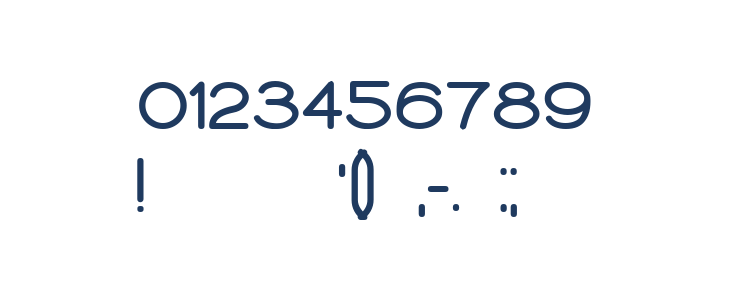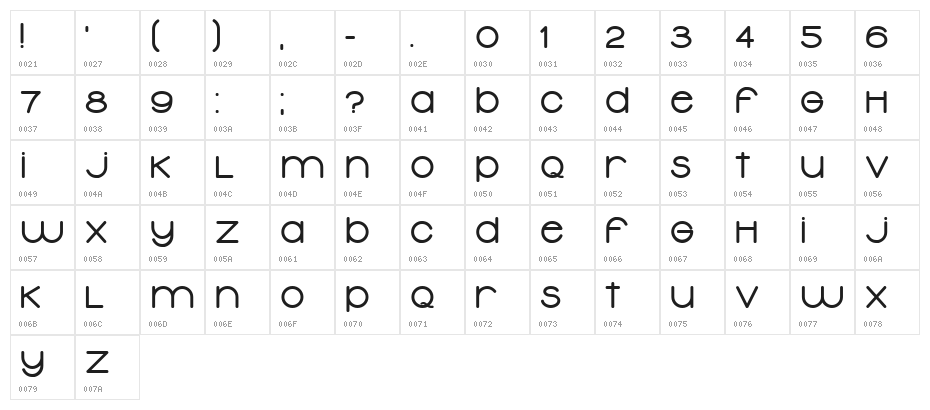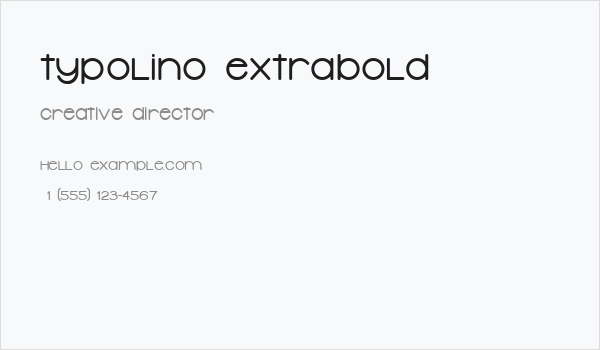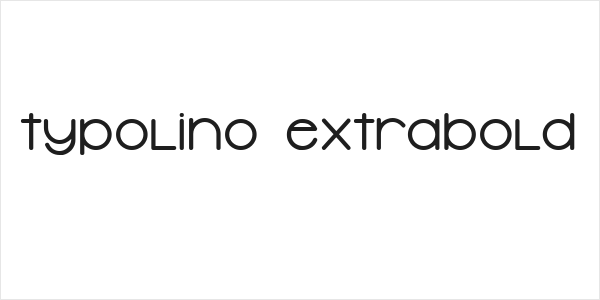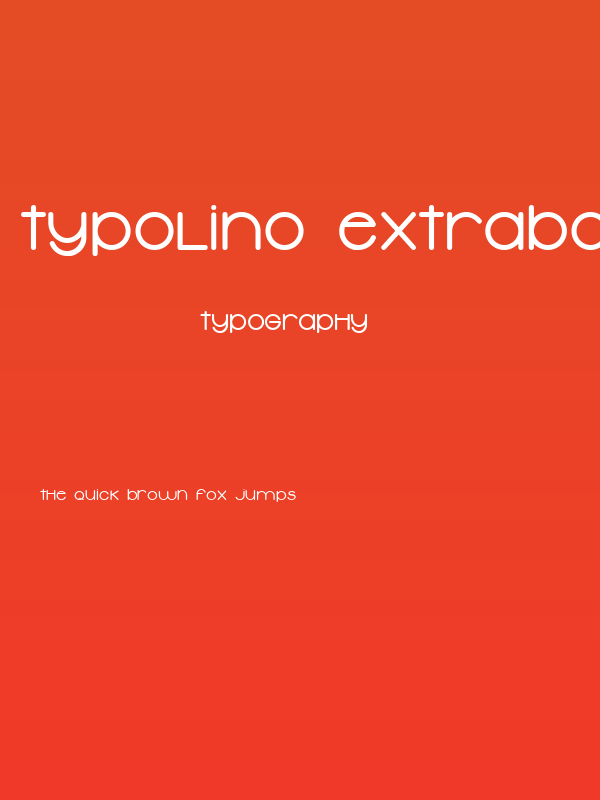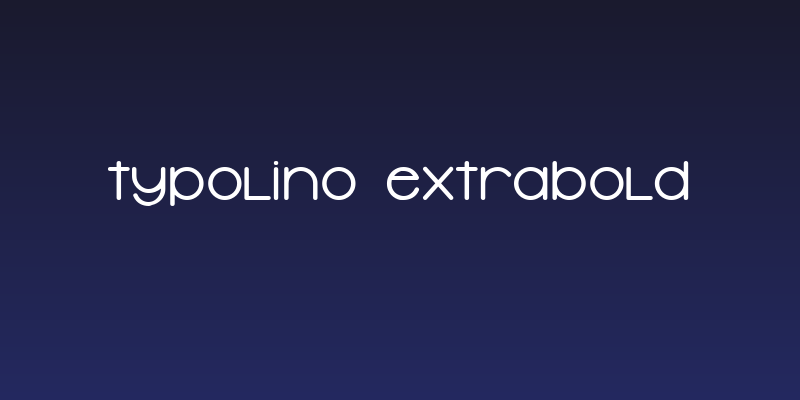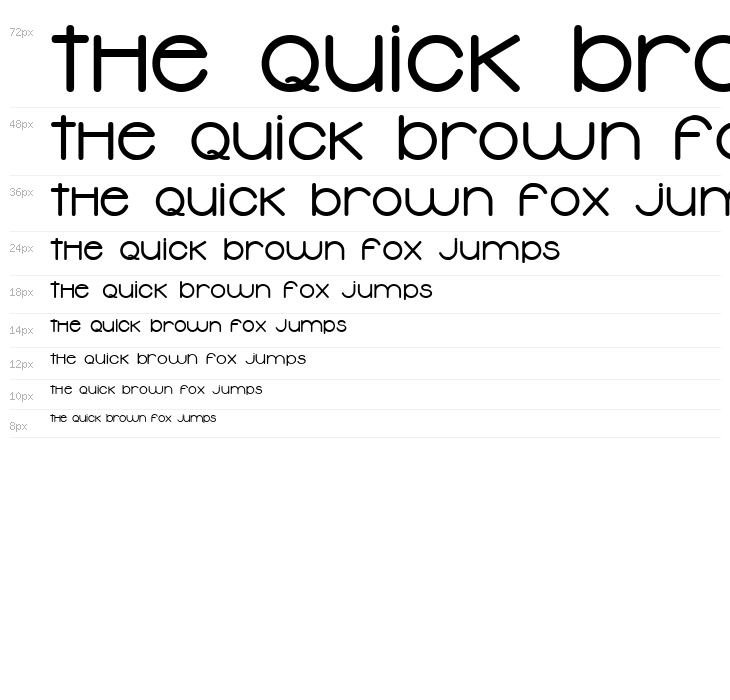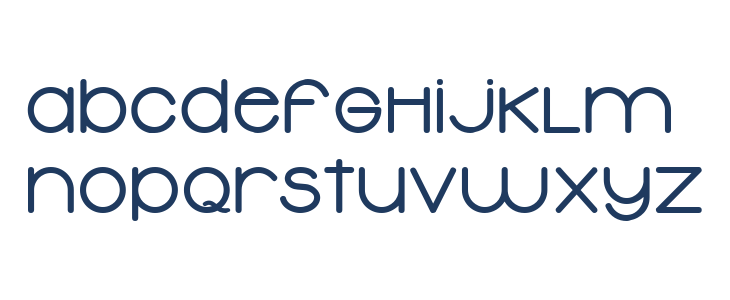
Typolino ExtraBold Font
Typolino ExtraBold Description
This font features a playful and modern design with rounded edges and a consistent stroke width throughout. The characters are evenly spaced, providing a clean and approachable look. The uppercase and lowercase letters maintain a uniform style, with a slight geometric influence that adds to its contemporary appeal. The numerals are clear and distinct, making them easily readable. Special characters are designed with the same rounded and friendly aesthetic, ensuring cohesion across all elements.
| Proposed Projects | Ideal for children's books, educational materials, playful branding, and modern web design. |